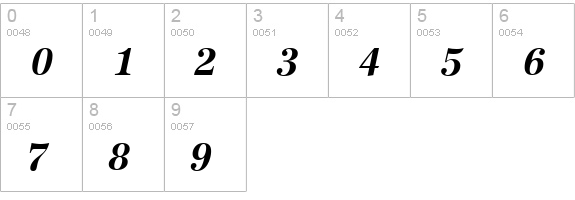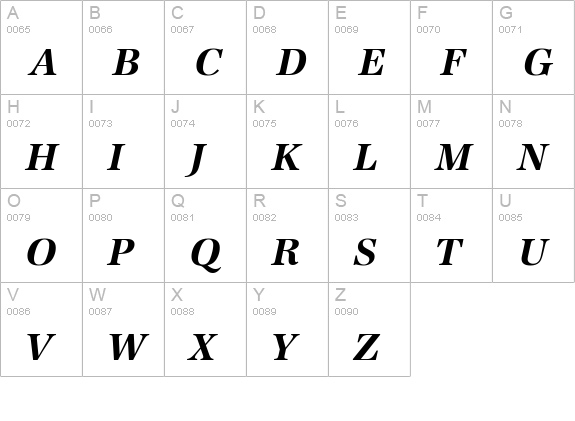
Antiqua-BoldItalic Font Details
Antiqua-BoldItalic is a classic and elegant font that exudes sophistication and timelessness. With its bold and italic style, this font is perfect for adding a touch of luxury and refinement to any project. Whether you're designing a logo, creating a poster, or crafting a wedding invitation, Antiqua-BoldItalic will make your text stand out with its unique flair. The best part is that Antiqua-BoldItalic is available for free download at FontsMarket.com. You can easily access this stunning font and enhance your designs without any cost. Don't miss out on the opportunity to elevate your projects with the beauty and charm of Antiqua-BoldItalic. Download it now and add a touch of sophistication to your creations.